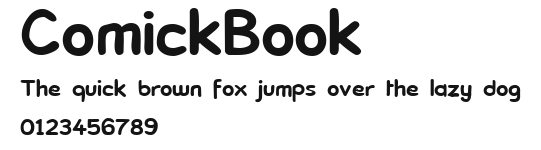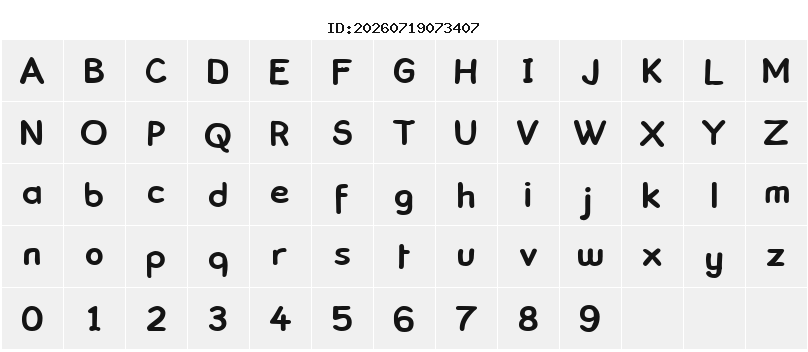
• Font Name: ComickBook
• Full Font Name: ComickBook Simple
About ComickBook.ttf
ComickBook.ttf is a modern, elegant sans-serif font designed for ultimate readability and visual harmony. Perfect for branding, headlines, web design, and print materials.